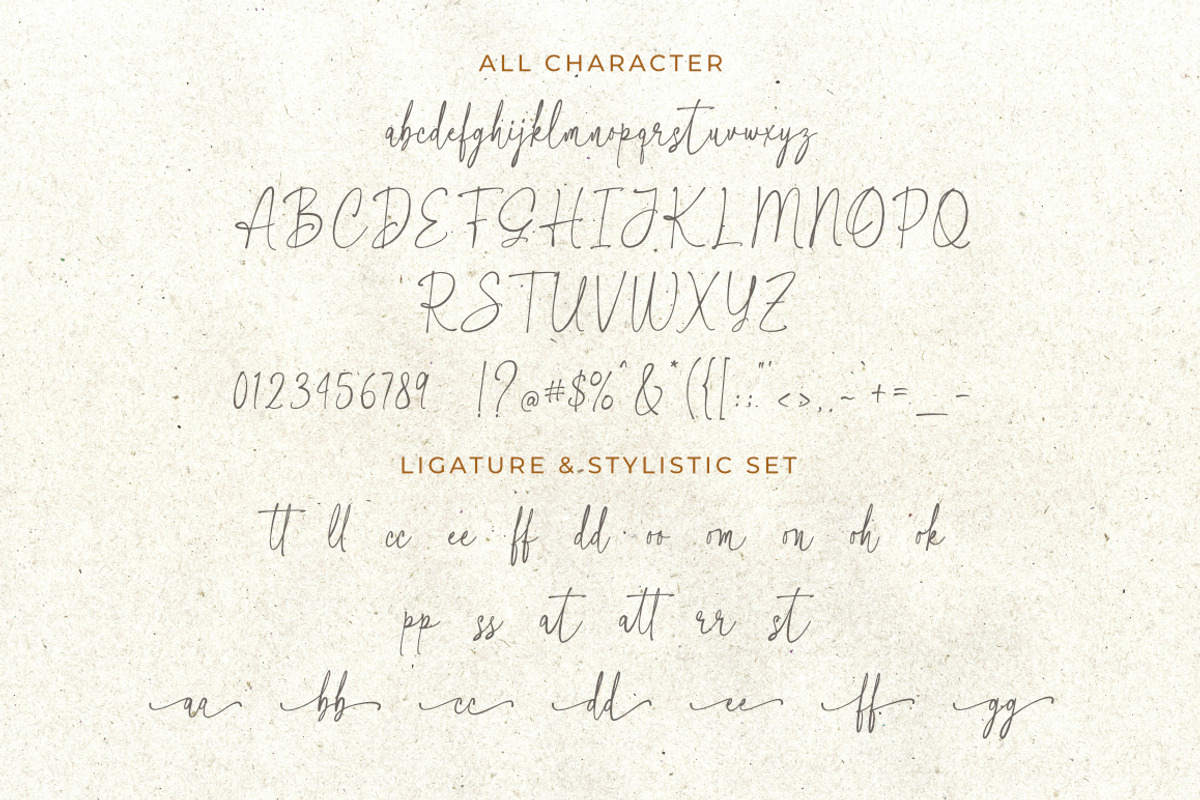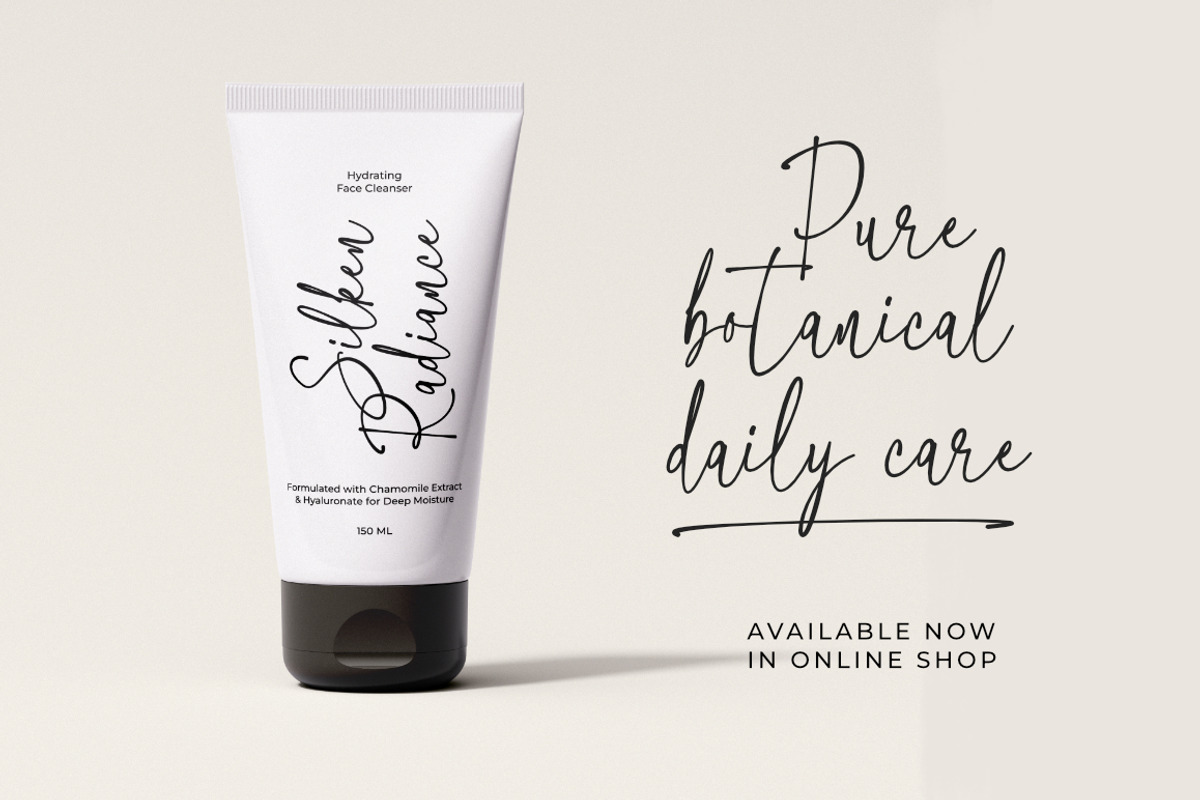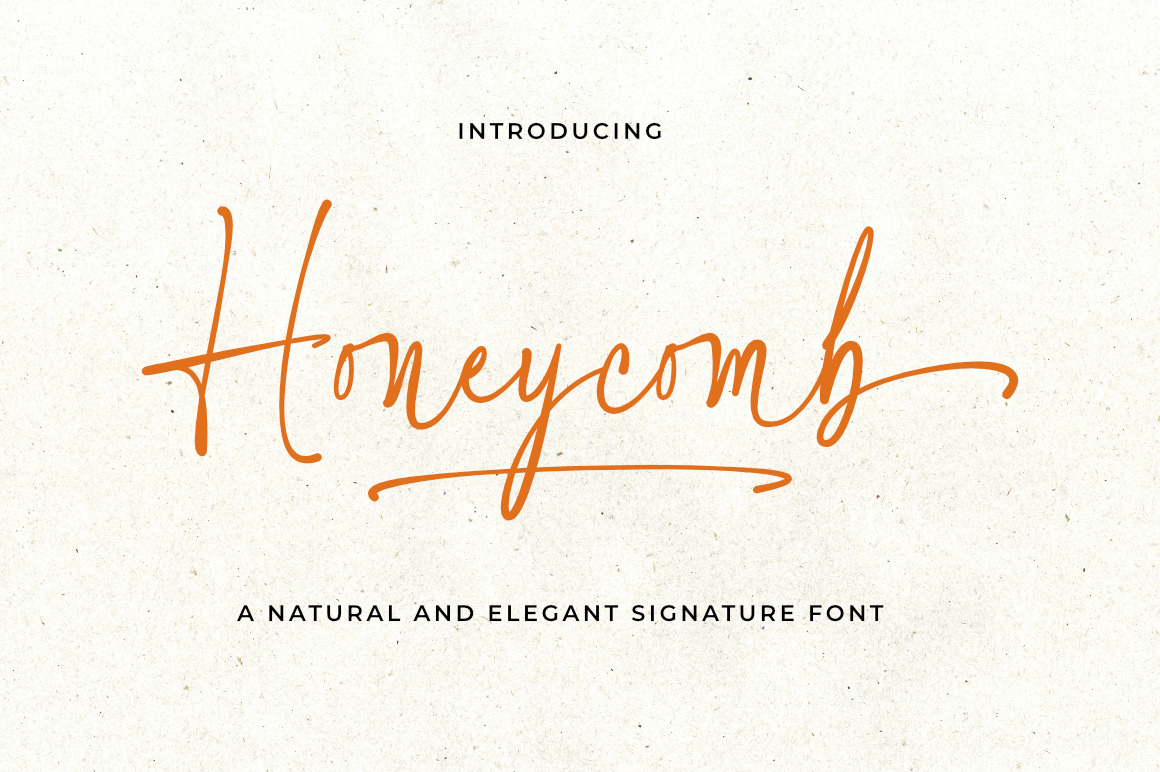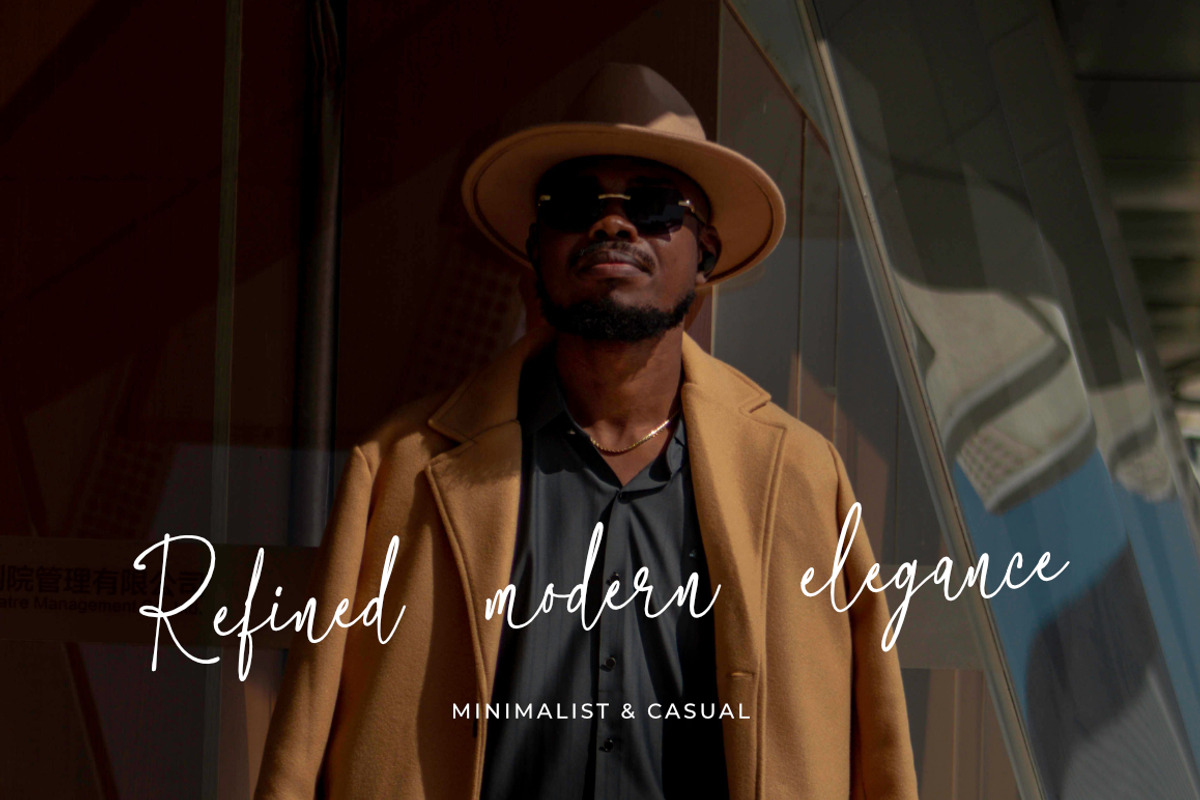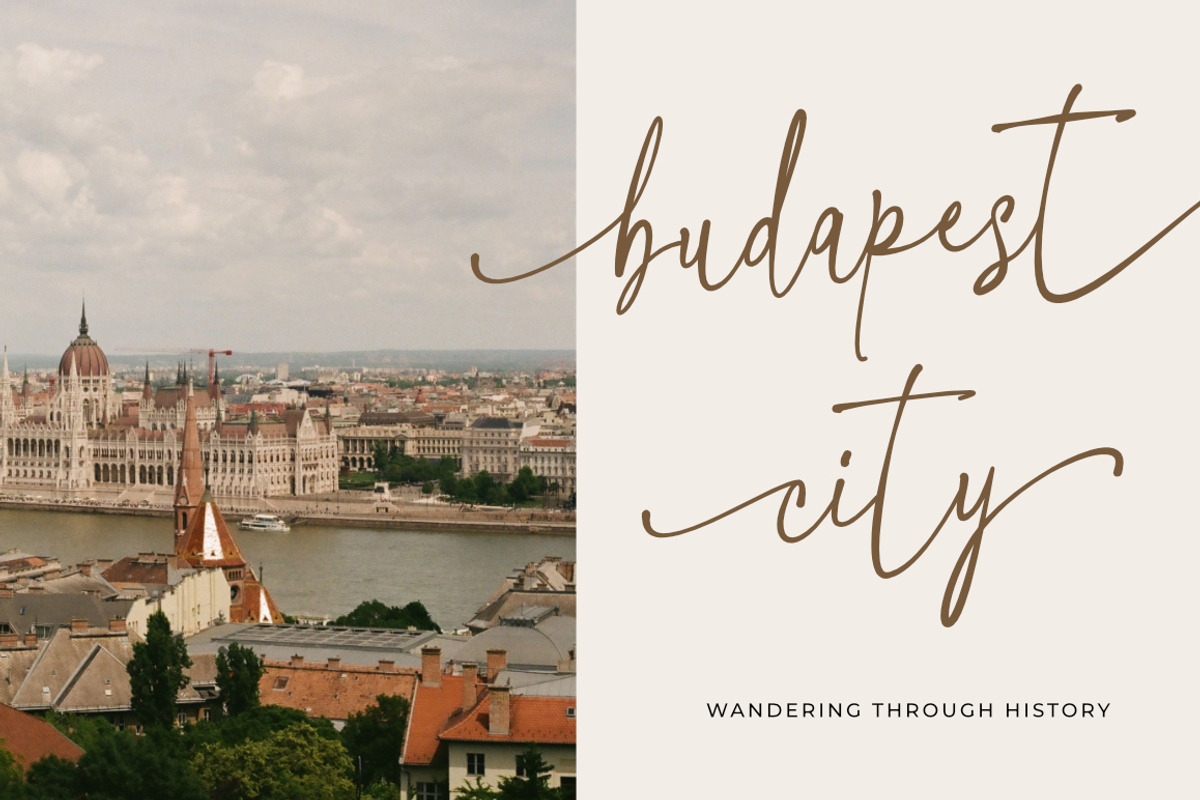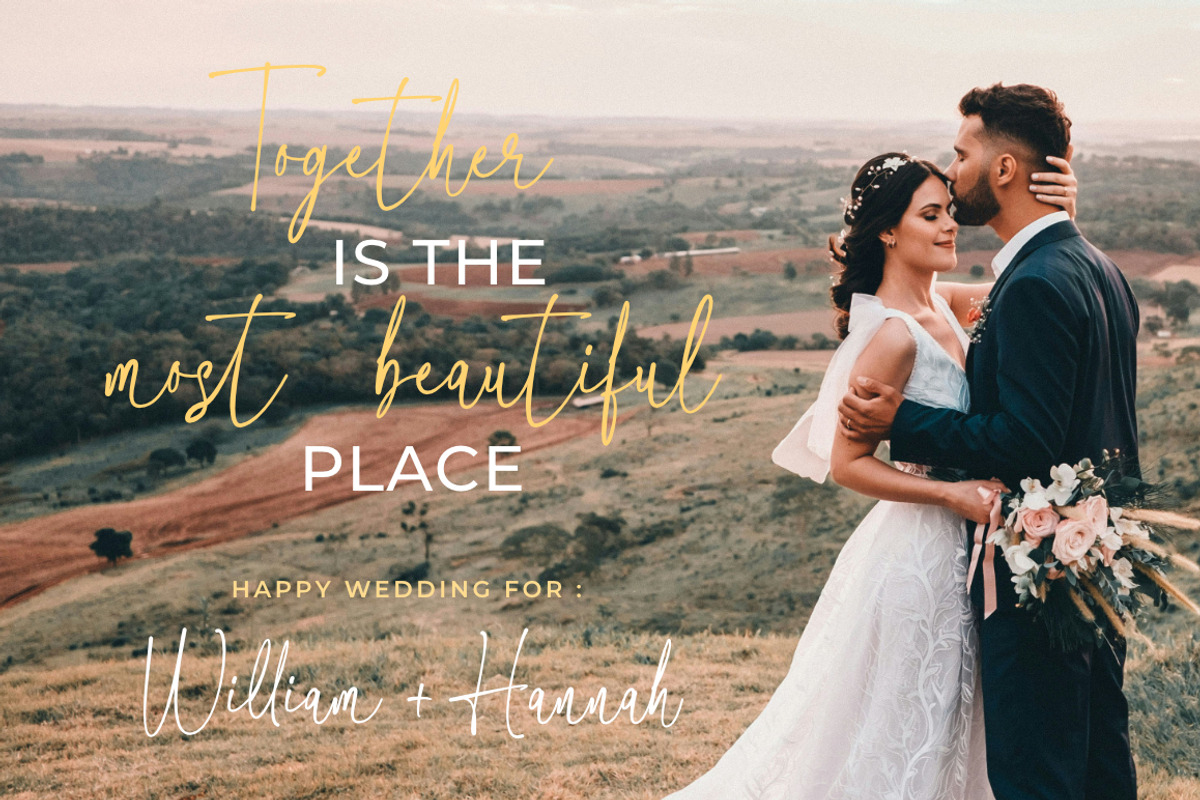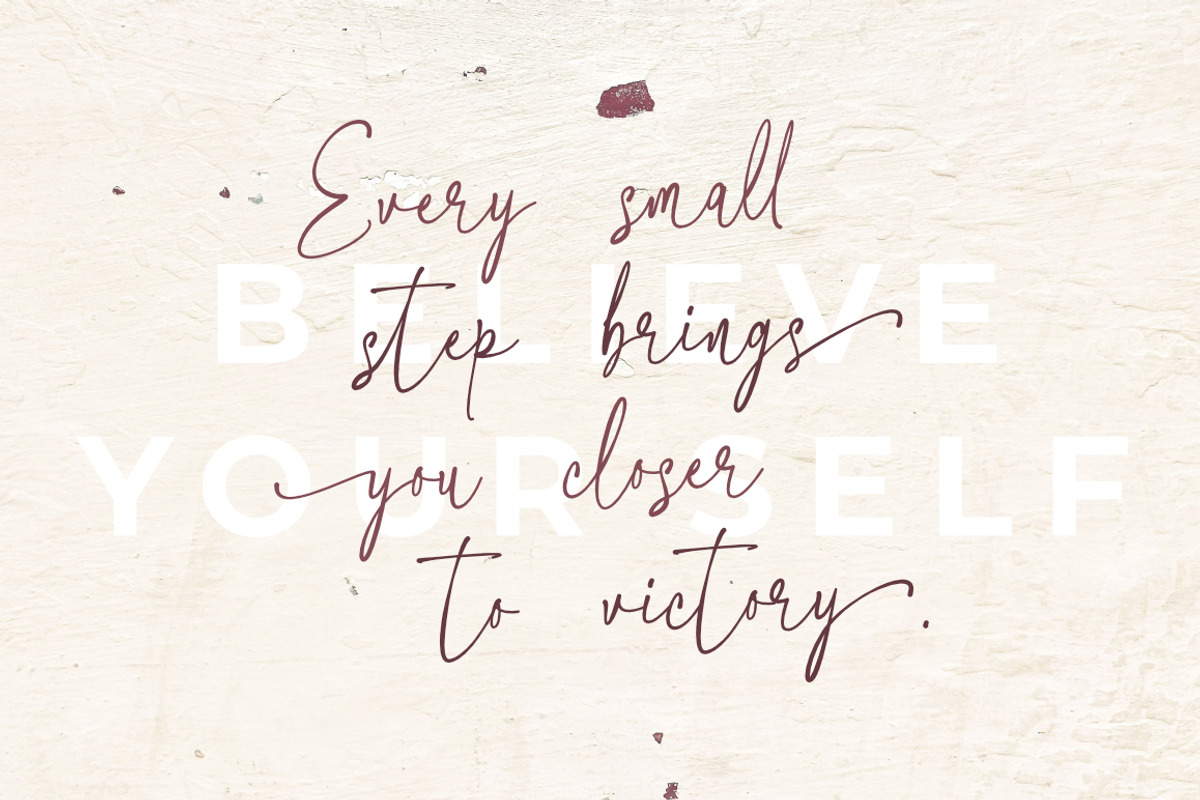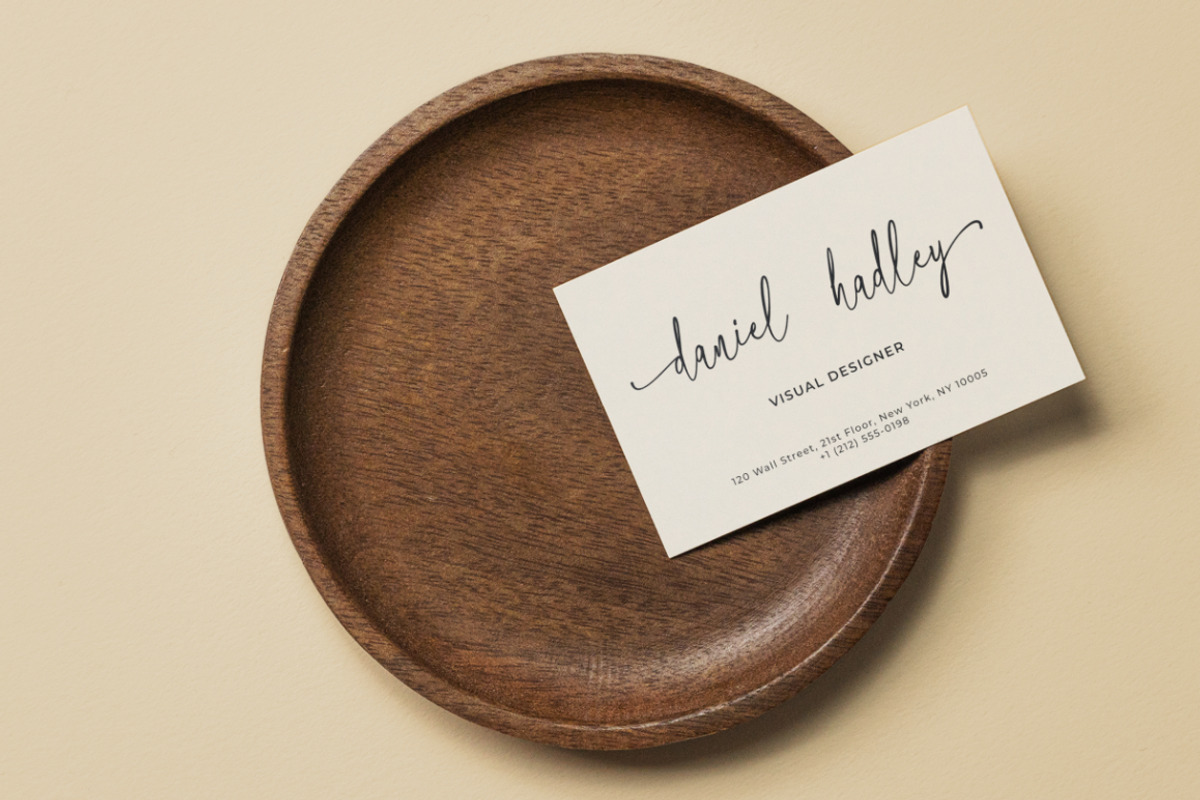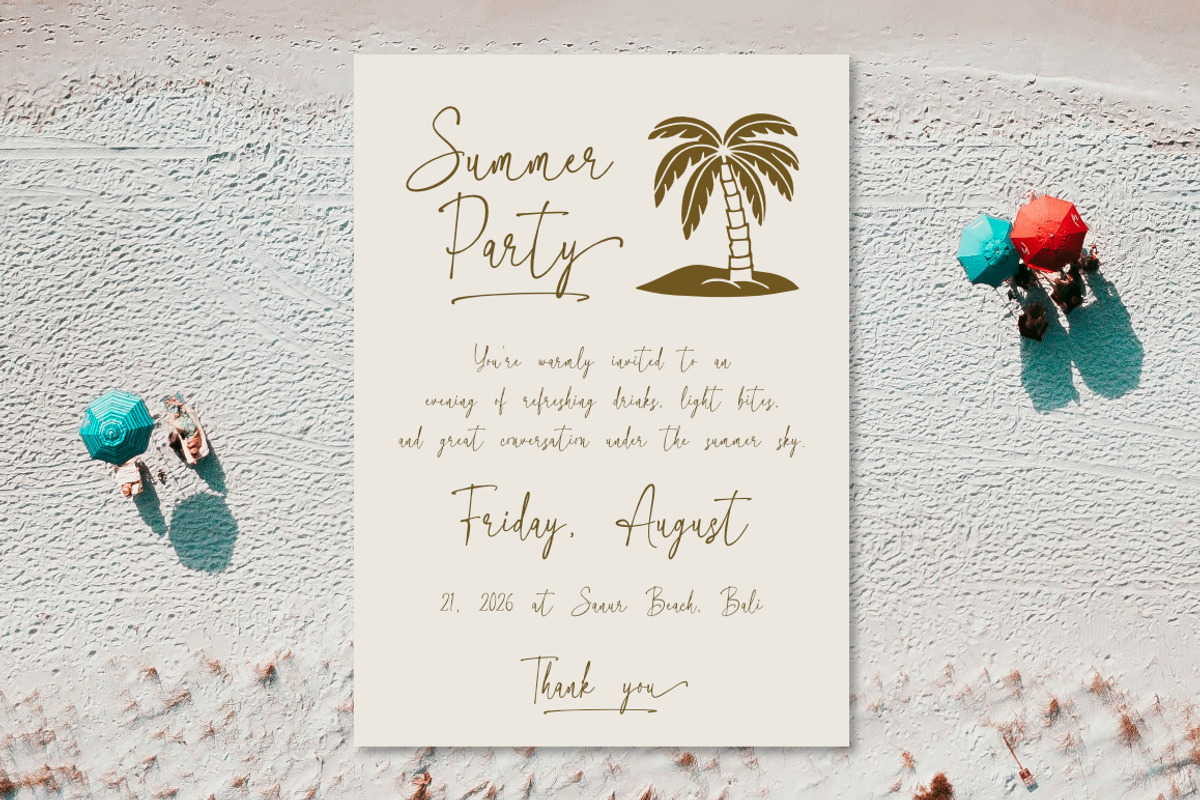
Honeycomb Signature Fonts
Meet Honeycomb, a modern signature script font designed to bring elegance, warmth, and an authentic handcrafted feel to your creative projects. With its natural flow, sleek loops, and organic stroke variations, Honeycomb captures the effortless beauty of real handwriting.
Perfect For: Branding & Logos, Wedding Invitations, Boutique Packaging, Product Labels, Magazine Layouts, Book Covers, Instagram Quotes, Watermarks, and Digital Banners.
Ligature Character
Stylistic Set
Swash Character
Support Multilingual Languange